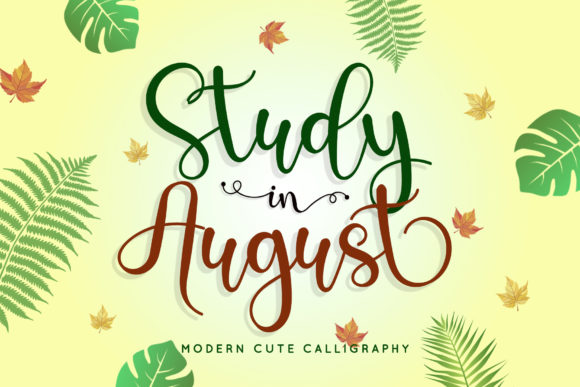
Unleash your creative flair with Study in August, the captivating script font that weaves a spell of elegance and fluidity. Immerse yourself in the world of modern UI design, where Study in August reigns supreme, captivating audiences with its enchanting allure. Crafted by the talented minds at Airotype, this font is a symphony of smooth lines, enchanting glyphs, and stunning alternates, harmonizing to create a masterpiece that breathes life into your digital creations.
With Study in August, you'll unlock a universe of visual possibilities, transforming ordinary designs into extraordinary expressions of art. Its PUA encoding grants you effortless access to a treasure trove of glyphs and swashes, empowering you to unleash your imagination and elevate your designs to new heights. Embrace the charm of its varying baseline, marvel at the grace of its calligraphic influences, and revel in the freshness and modernity it exudes.
Study in August is more than just a font; it's an experience, a journey into the realm of beauty and innovation. Let your creativity soar as you explore the endless possibilities that await you. Fall in love with the art of typography and witness the transformative power of Study in August, turning your digital dreams into breathtaking realities.